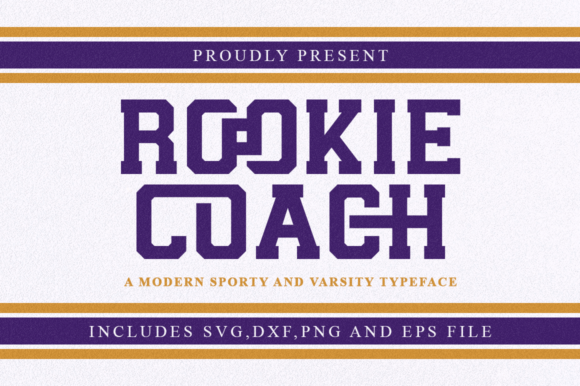
Unleash the Spirit of Athleticism with Rookie Coach Font: The Ultimate Mark of Power and Determination!
Venture into the world of sports and athleticism with Rookie Coach, the slab serif font that embodies strength, energy, and a commanding presence. Its bold and powerful strokes, coupled with clean and defined lines, create an unrivaled visual impact, making it the perfect choice for projects that demand attention.
With Rookie Coach, your designs will radiate an aura of sportiness and determination. Whether you're creating athletic apparel, event promotions, or any project that requires a strong visual statement, this font delivers the impact you need. Unleash the competitive spirit and capture the essence of action with every design.
Dive into a world of creativity and let Rookie Coach fuel your imagination. Its PUA encoding ensures effortless access to a wide range of glyphs and swashes, providing endless possibilities for customization. Experiment with different combinations, explore unique design elements, and let your creativity soar.
Ignite Your Designs with Rookie Coach, the Font That's Poised for Victory!
Make a statement, make an impression, and make your designs shine with Rookie Coach. Its athletic charm and commanding presence will elevate your work to new heights, leaving a lasting impression on your audience.